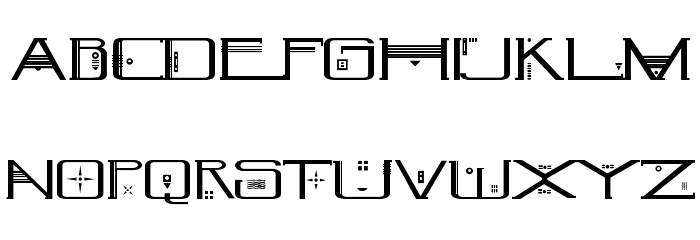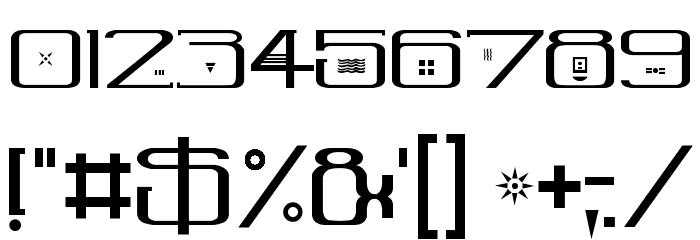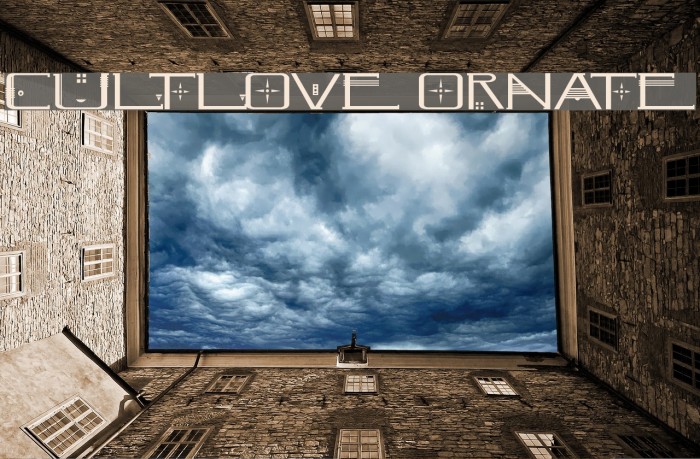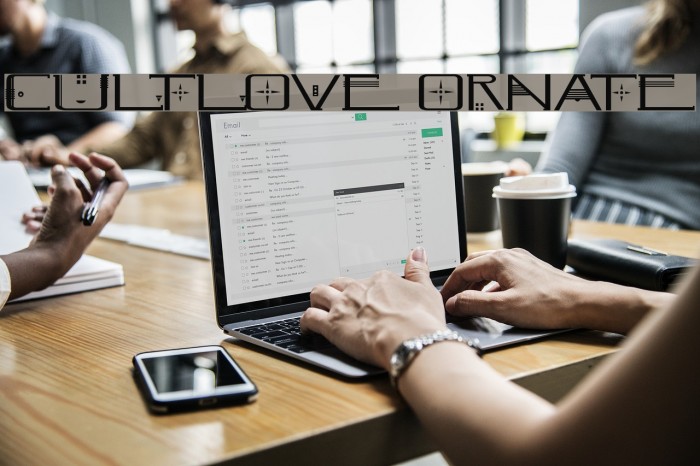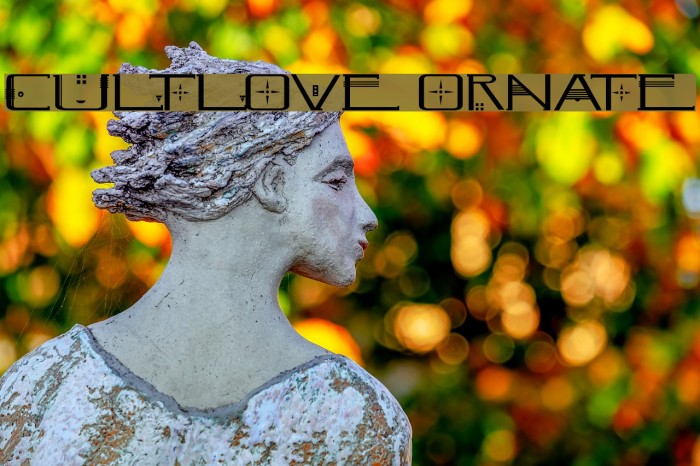
CultLove Ornate Font
This font features an ornate and decorative style with intricate details embedded within each character. The uppercase and lowercase letters are designed with unique embellishments, including geometric shapes and lines that add a futuristic and artistic flair. The numerals and special characters maintain this ornate theme, making the font highly distinctive and eye-catching. Its complex design suggests a modern and avant-garde aesthetic, suitable for projects that require a bold and unconventional look.
An ornate, decorative font with intricate geometric details and a modern flair.
- Font: CultLove Ornate
- Proposed Projects: Ideal for branding, album covers, posters, and any project seeking a unique and artistic touch.
- Overall Style: Modern, Decorative